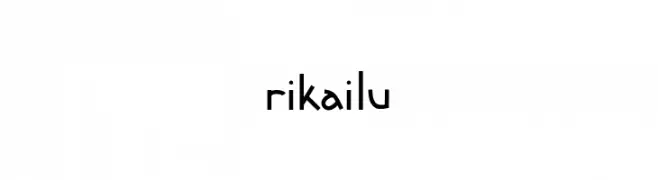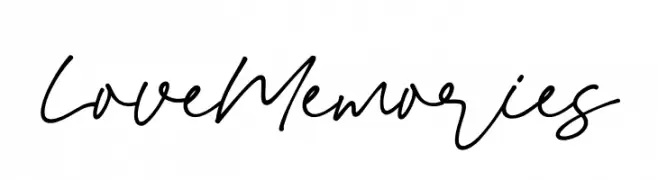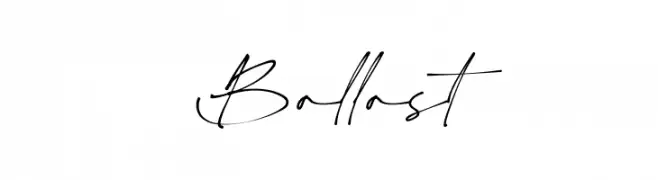
A bold, geometric font with sharp angles and a modern, dynamic style.
A bold, rounded font with a playful and dynamic style.
A thin, geometric font with a modern and minimalist style.
A playful and quirky font with unique, irregular letterforms.
A minimalist, geometric font with thin, consistent strokes and a modern aesthetic.
A cursive, handwritten font with smooth, connected strokes and elegant style.
A lively, handwritten font with expressive strokes and a casual style.
A fluid and elegant handwritten script font with a personal touch.
A sophisticated script font with elegant swirls and flowing cursive letters.
A flowing, elegant script font with a natural handwriting style.